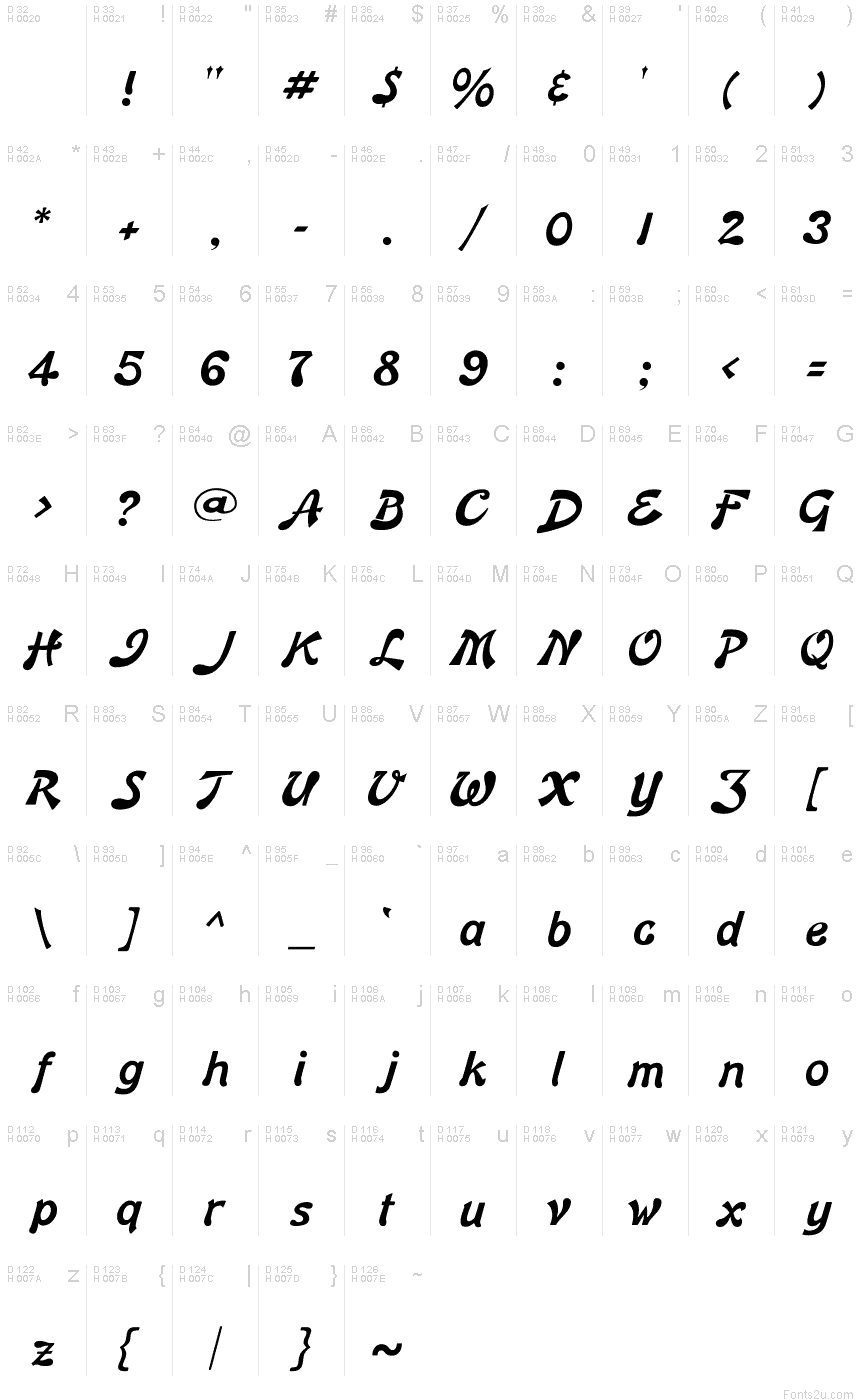
BonnardFLF
BonnardFLF by Richard A. Ware is a free calligraphic display font with a forceful, slanted silhouette and noticeable contrast between broad strokes and fine tapered ends. Its curves are generous and strongly drawn.
As a theatrical title, it can turn historical drama posters and literary publishing into something grand, cultured, and personal. The same sweeping construction suits printed wine packaging and restaurant branding built around old-world craft and artistic tradition. Its most convincing role is in food and drink identities, where the broad pen-like forms resemble lettering painted by hand.